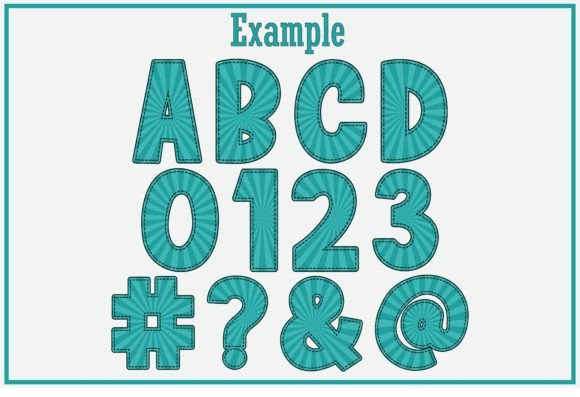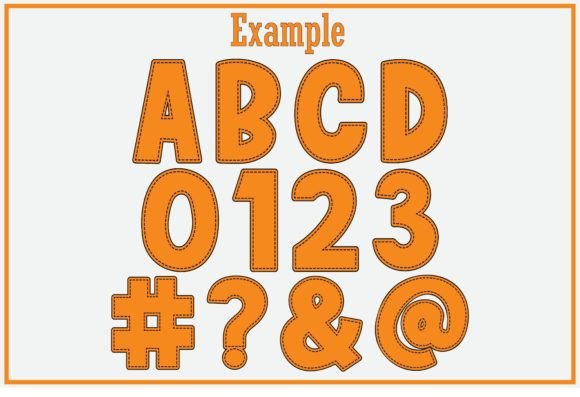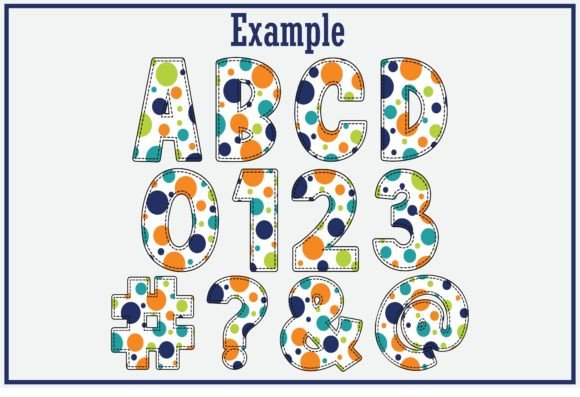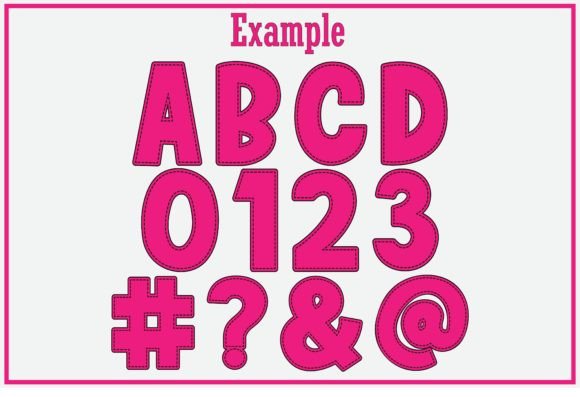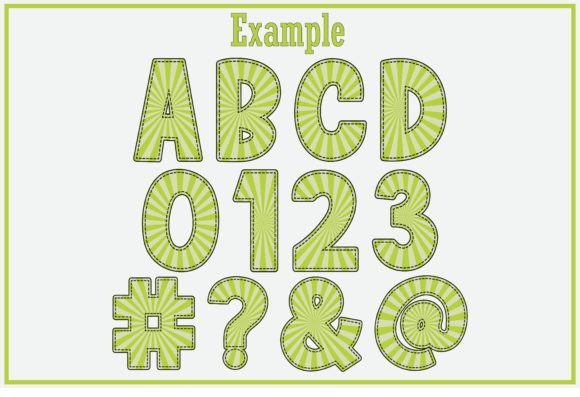
Introducing Bright Font: Elevate Your Designs with a Bold and Beautiful Typeface
Are you tired of using the same old fonts in your designs? Look no further than Bright Font, a stunning and bold color font that’s perfect for making your headlines and logos stand out. With its strong, confident, and dynamic appearance, Bright Font is sure to add a lot of character to your designs and take them to the next level.
The Power of Bold Typography
Typography is a crucial element in any design, and the right font can make all the difference. A bold and eye-catching font like Bright Font can instantly grab attention and convey a sense of confidence and authority. Whether you’re designing a logo, headline, or advertisement, Bright Font is the perfect choice for making a statement.
What Makes Bright Font So Special?
So, what sets Bright Font apart from other fonts? Here are just a few of its key features:
- Bold and Beautiful: Bright Font is a bold and beautiful color font that’s designed to make your designs pop.
- Strong and Confident: With its sturdy and confident appearance, Bright Font is perfect for headlines, logos, and other applications where you want to make a statement.
- Dynamic and Versatile: Bright Font is a versatile font that can be used in a wide range of designs, from modern and edgy to elegant and sophisticated.
How to Use Bright Font in Your Designs
Bright Font is easy to use and can be incorporated into your designs in a variety of ways. Here are a few ideas to get you started:
- Headlines and Titles: Use Bright Font to create bold and eye-catching headlines and titles that grab attention.
- Logos and Branding: Bright Font is perfect for logos and branding applications where you want to make a strong and confident statement.
- Advertisements and Marketing Materials: Use Bright Font to create eye-catching advertisements and marketing materials that stand out from the crowd.
Tips for Getting the Most Out of Bright Font
Here are a few tips for getting the most out of Bright Font:
- Experiment with Colors: Bright Font comes in a range of colors, so don’t be afraid to experiment and find the perfect hue for your design.
- Play with Contrast: Use Bright Font in combination with other fonts and design elements to create striking contrast and visual interest.
- Keep it Simple: Don’t overcomplicate your design – Bright Font is a bold and eye-catching font that can stand on its own, so keep your design simple and clean.
Why Designers and Crafters Love Bright Font
Bright Font has quickly become a favorite among designers and crafters, and it’s easy to see why. Here are just a few reasons why:
- High-Quality Design: Bright Font is a high-quality font that’s designed to look great in any design.
- Versatile: Bright Font can be used in a wide range of designs, from modern and edgy to elegant and sophisticated.
In conclusion, Bright Font is a bold and beautiful color font that’s perfect for making your designs stand out. With its strong, confident, and dynamic appearance, Bright Font is sure to add a lot of character to your designs and take them to the next level. Whether you’re a designer, crafter, or simply someone who loves typography, Bright Font is a must-have font that’s sure to inspire.